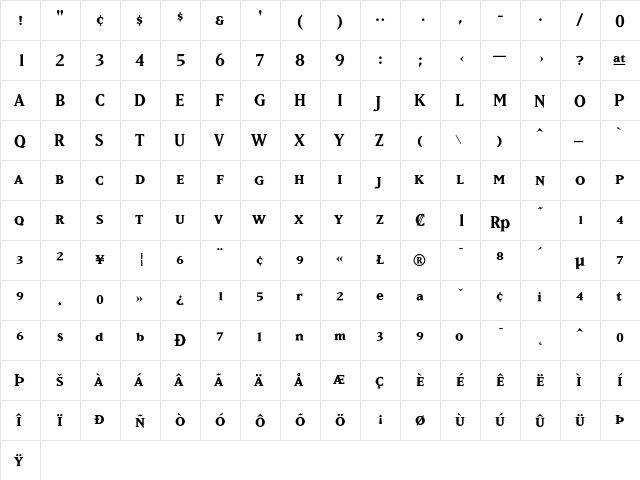
MatrixBoldSmallCaps Medium
| Foundry | Copr. Emigre Graphics |
Design Context for MatrixBoldSmallCaps Typeface
MatrixBoldSmallCaps is a composed and adaptable typeface that performs quietly and consistently across a wide range of design contexts. Its bold stroke weight gives it real presence on the page.